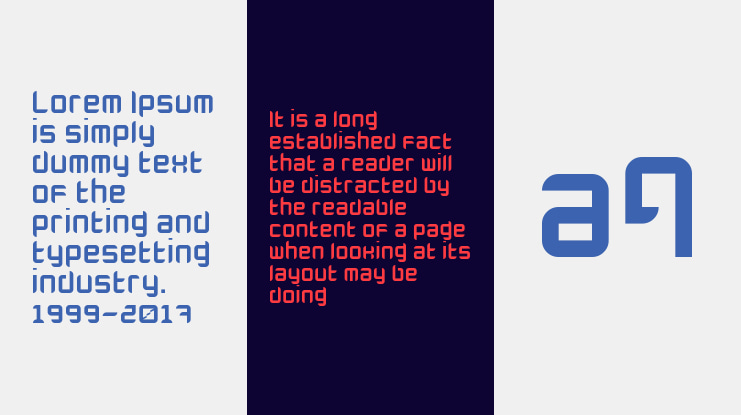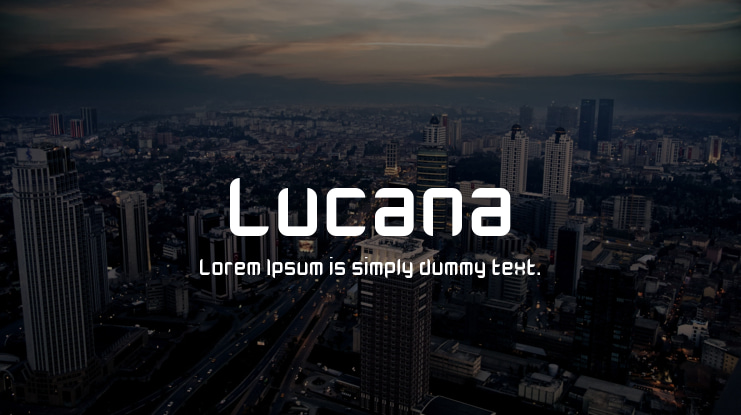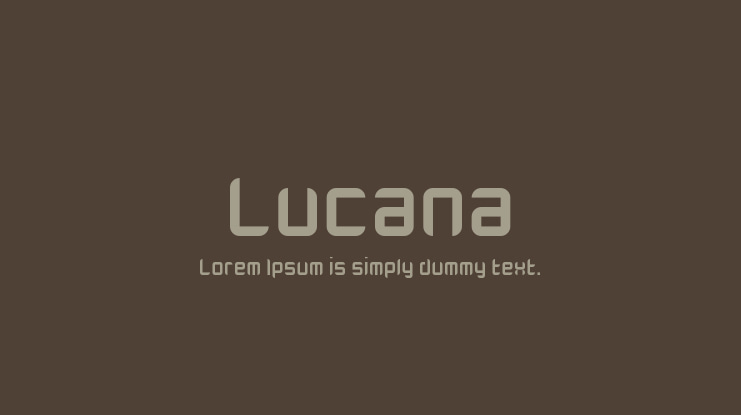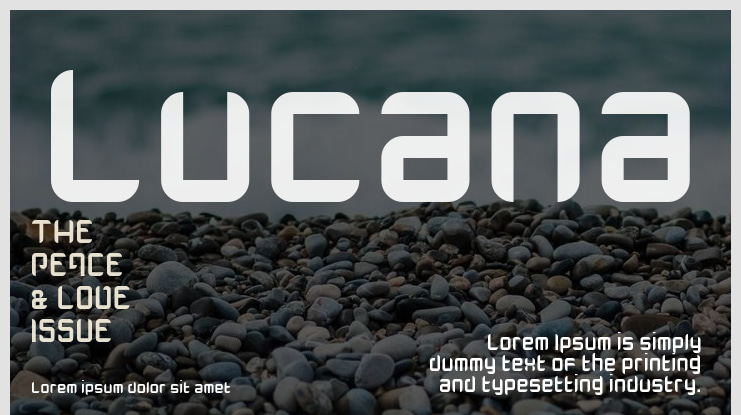
Lucana Font
Lucana Roman was inspired by a doodle my four-year-old son drew. While the font set I eventually created in Adobe Illustrator is slightly different, it still resembles that original sketch. Back in 2000, I was studying Japanese kanas, and since my son's name is Luc, I felt "Lucana" was a fitting title for the font.